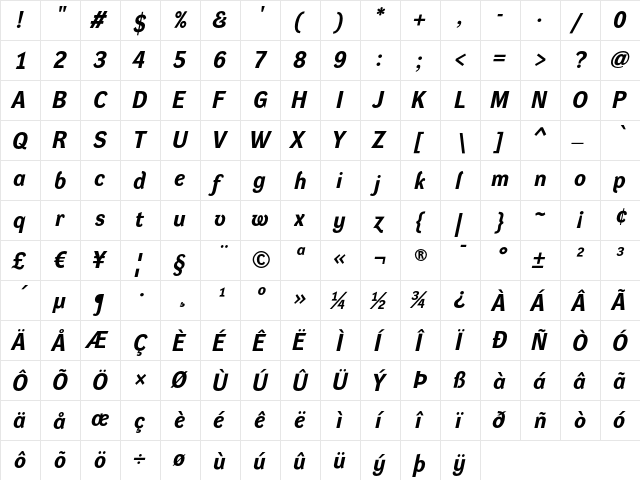
DynaGrotesk R Bold Italic Font Preview
Design Context for DynaGrotesk R Typeface
DynaGrotesk R takes a clean, functional approach — its unadorned letterforms prioritise legibility and work reliably across screen and print environments. The slanted form adds forward momentum and visual energy. The heavy weight commands attention and anchors typographic hierarchies.
A strong choice for UI design, app interfaces, bold signage, and corporate brand systems.
Font Pairing: Use DynaGrotesk R for headlines alongside a lighter-weight sans or serif for body copy to establish clear visual hierarchy.
Pro Tip: Pair DynaGrotesk R with a display or serif font for headlines — its neutral character makes it an excellent supporting player in complex typographic systems.